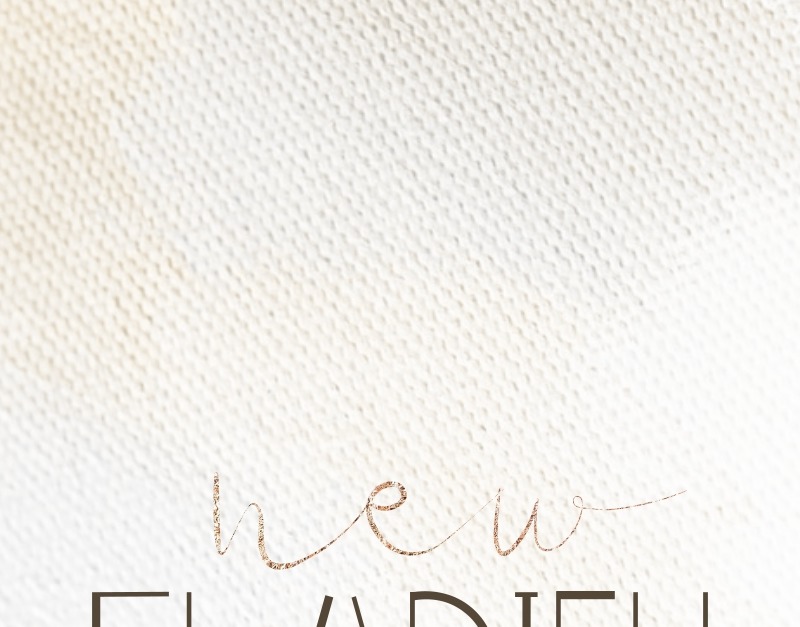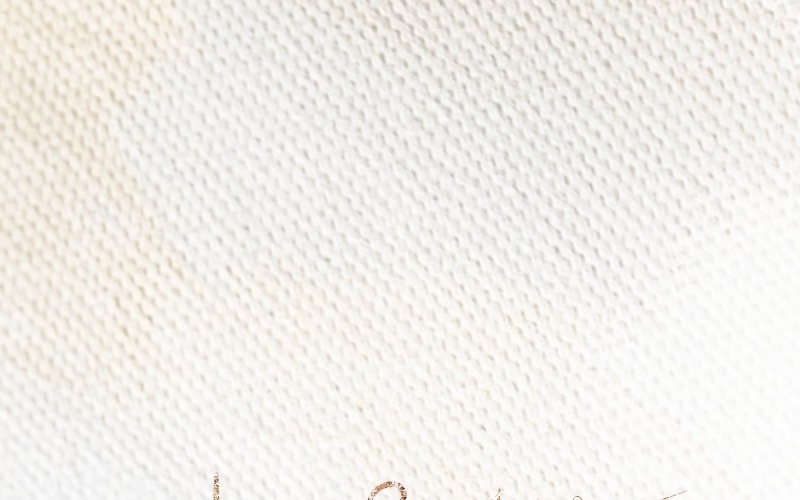
NewGLADISH Font
It’s Edric Studio again here. Please welcome! our latest font family : New GLADISH Font
This is a font family contains fancy display with sans look and a script handwritten font.
New GLADISH Font has many alternate glyphs so you can explore further more. This font will suits many projects categories : Logo type, flyer, stationery, business card, signage, flyer, brochure etc. With your creativity, there’s no limit using with this font.